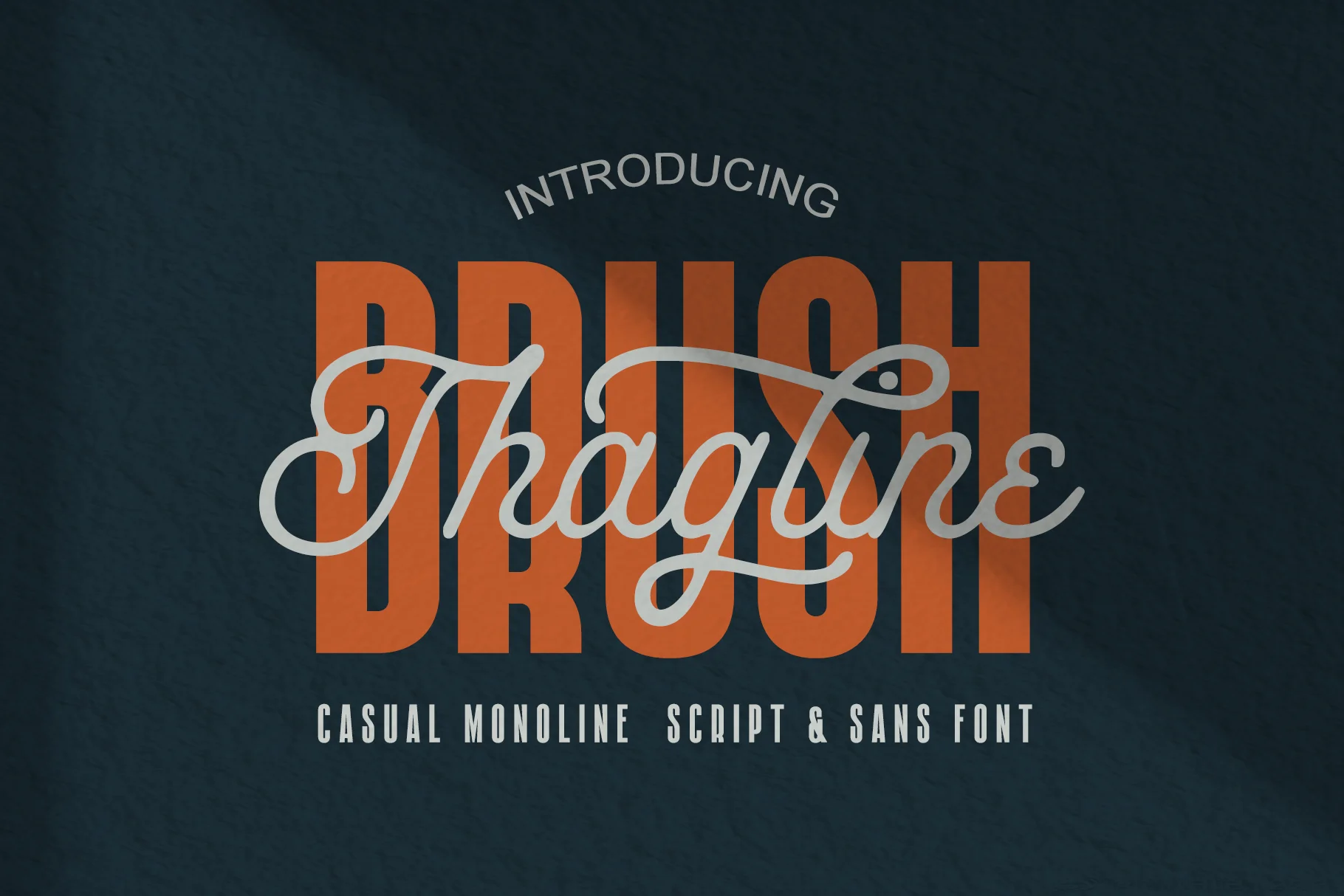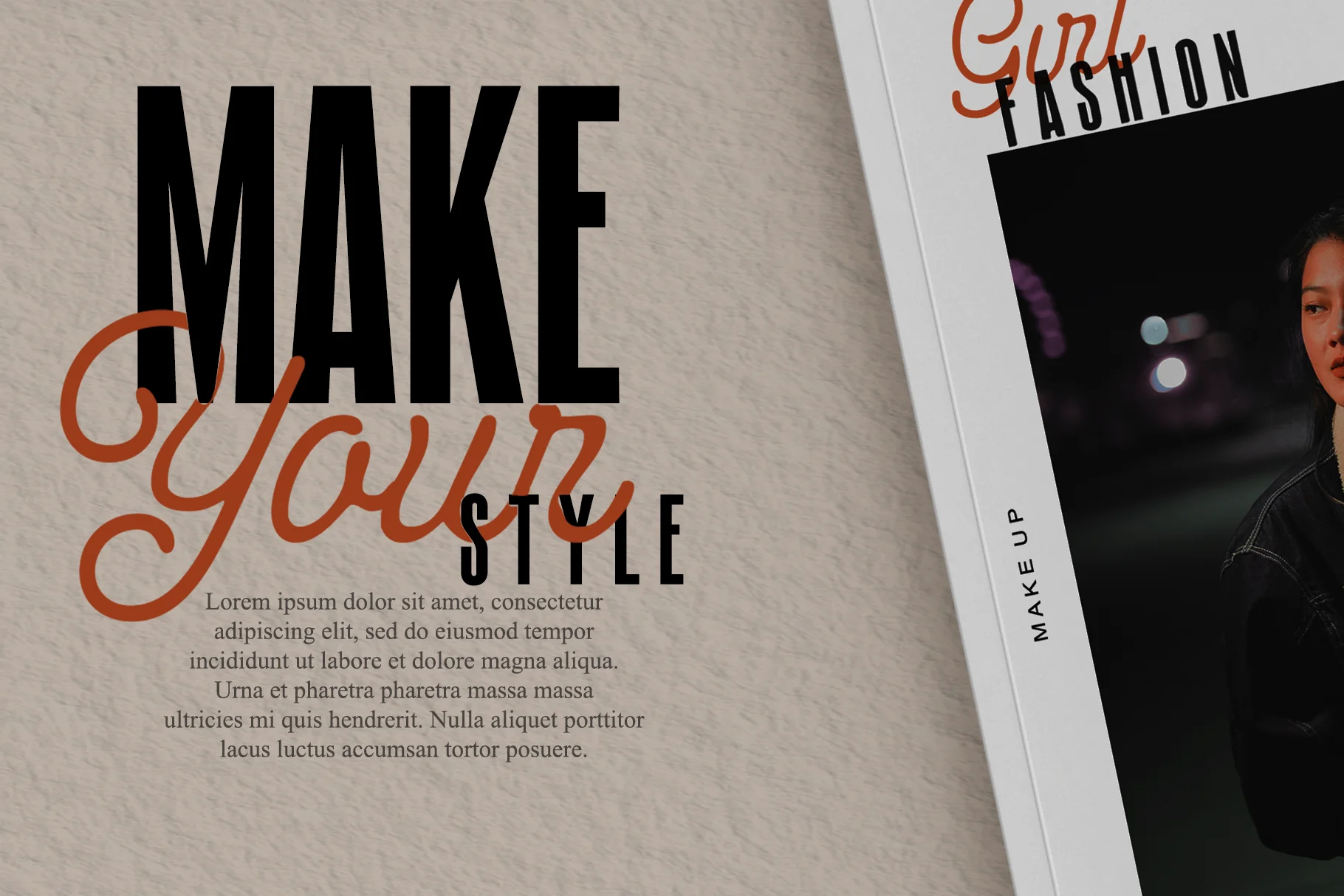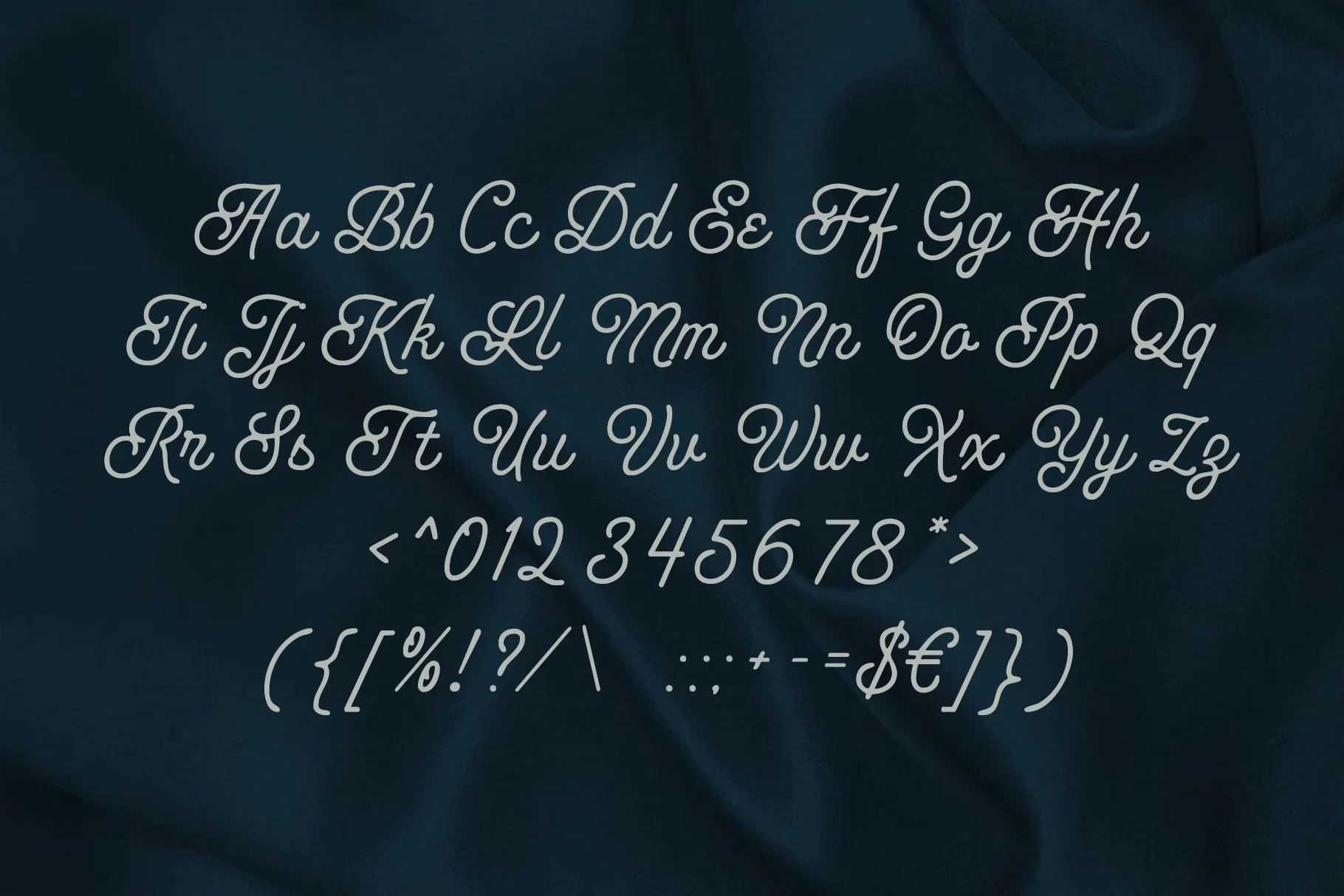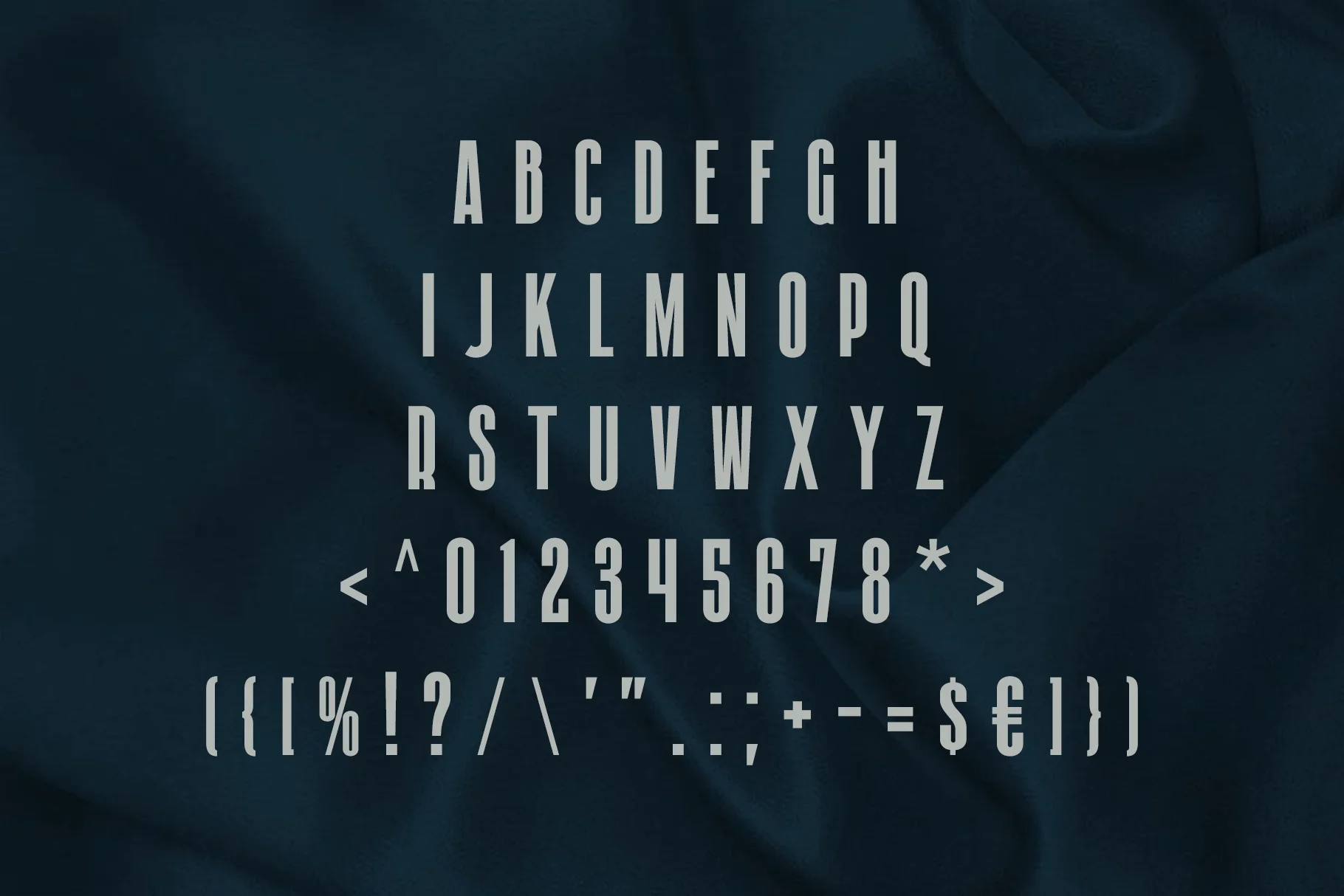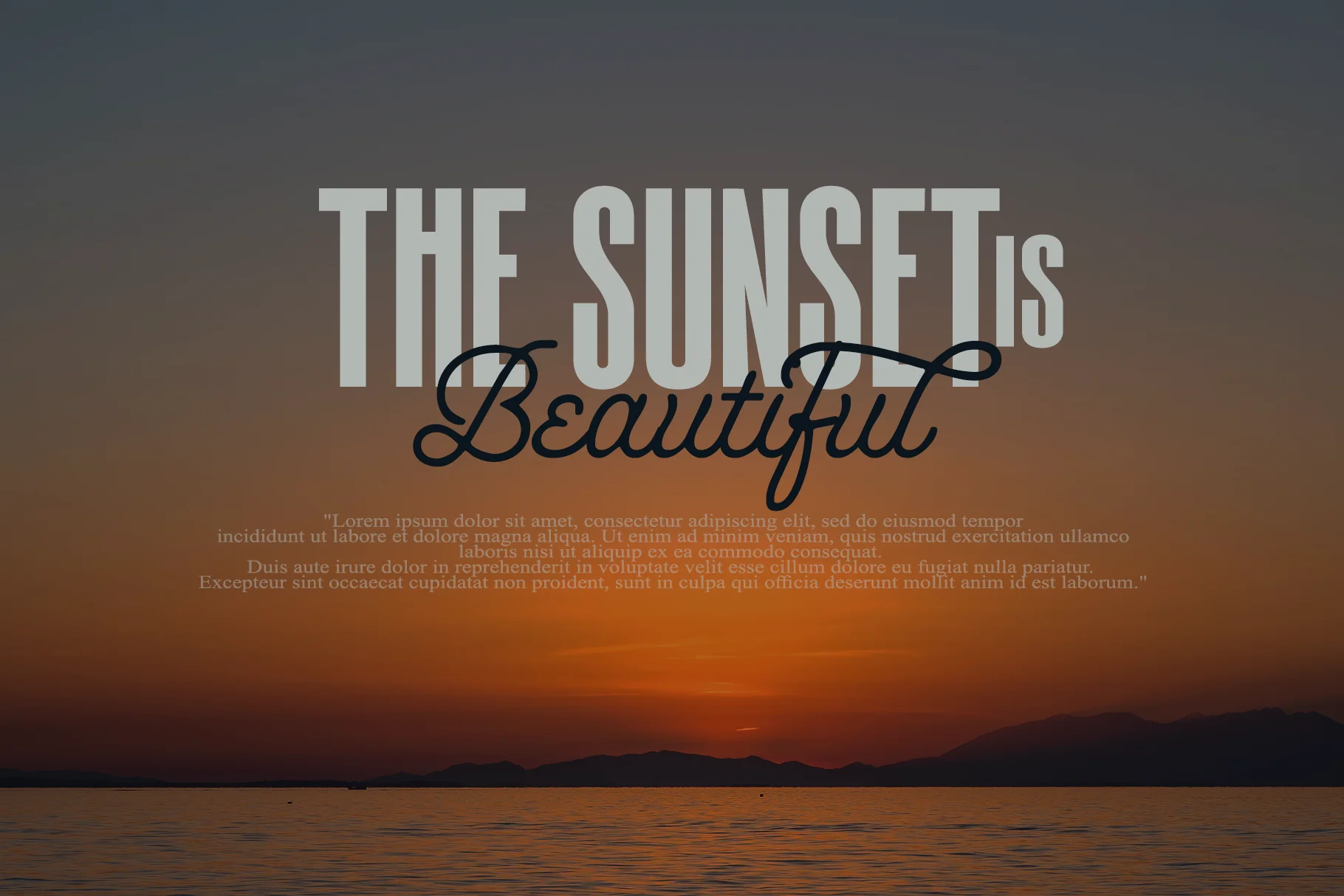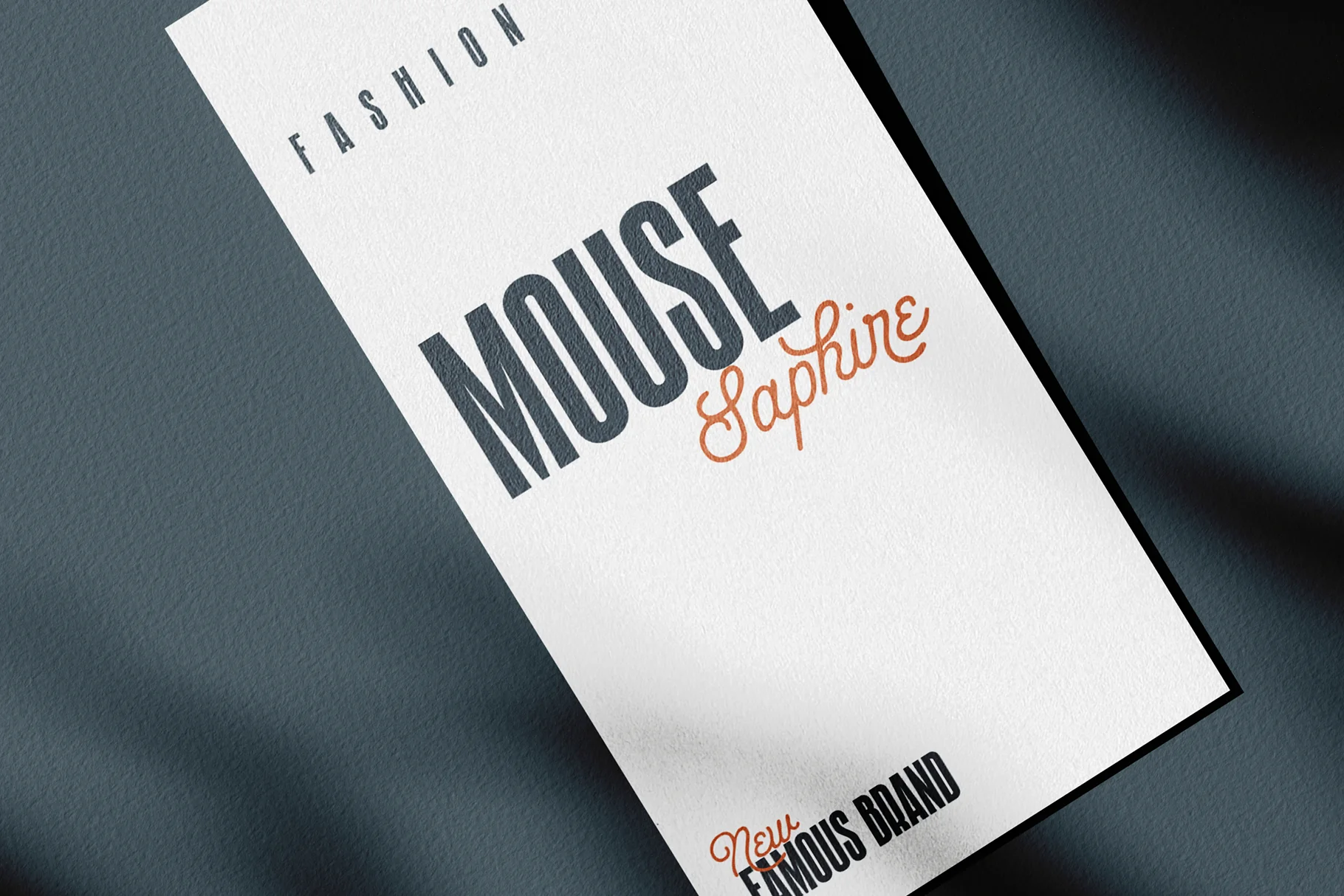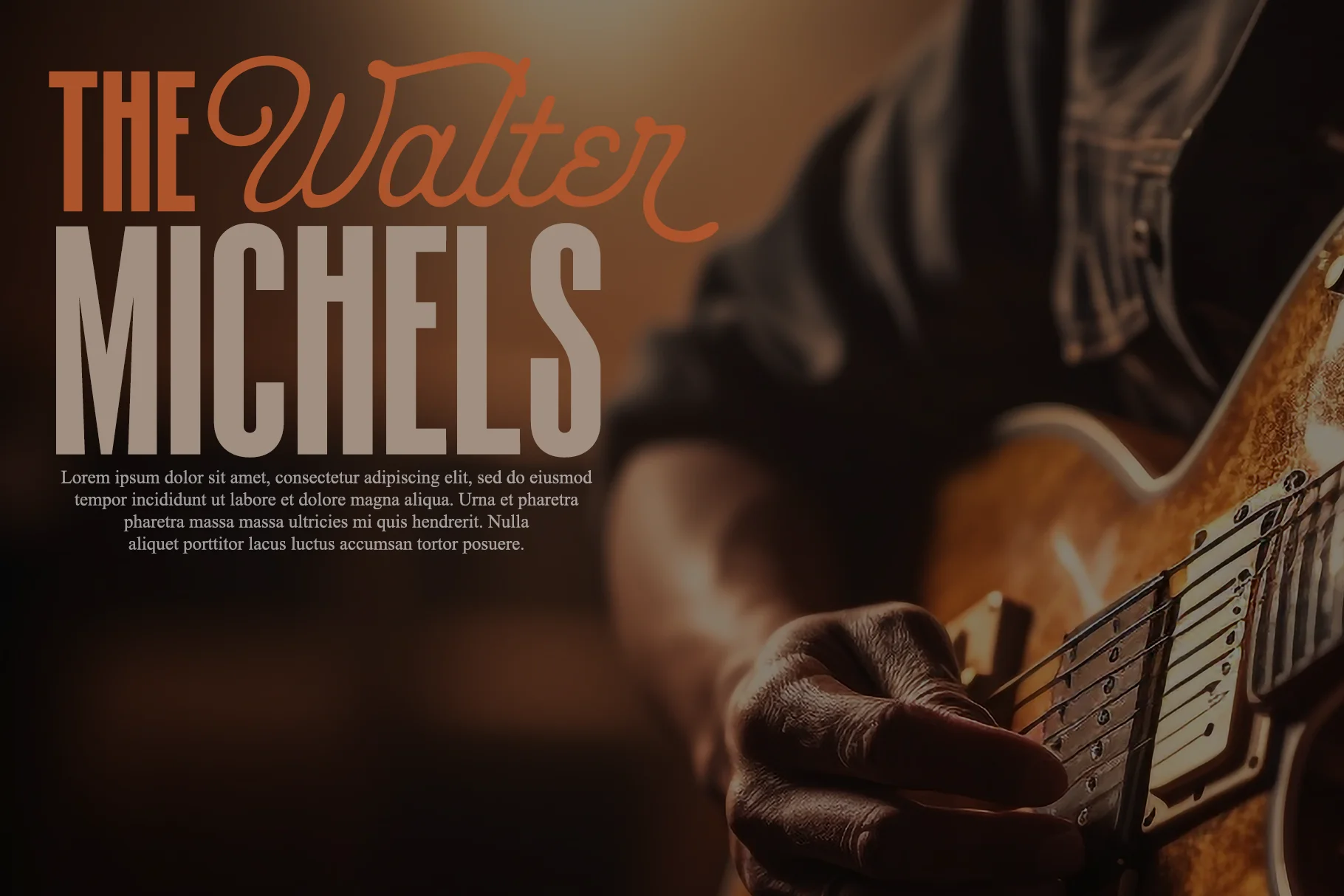
Brush Thagline
Brush Thagline is a combination font pack specifically designed to convey a contemporary, bold, and elegant feel. It consists of two main styles: a sturdy Bold Sans-Serif and a beautifully flowing Casual Monoline Script.
The key highlight of this font is the way the two typefaces interact. When layered, they create an interesting visual dimension, as seen in the words "BRUSH" and "Thagline" in the image.
Perfect for:
- Branding & Logos: Providing a strong and unique identity for fashion, coffee, or creative industry brands.
- Apparel Design: Aesthetic typography for graphic prints.
- Posters & Flyers: Making it easier to organize information hierarchy between main headlines and additional details.
- Social Media Graphics: Making your Instagram or Pinterest content look more curated and fashionable.